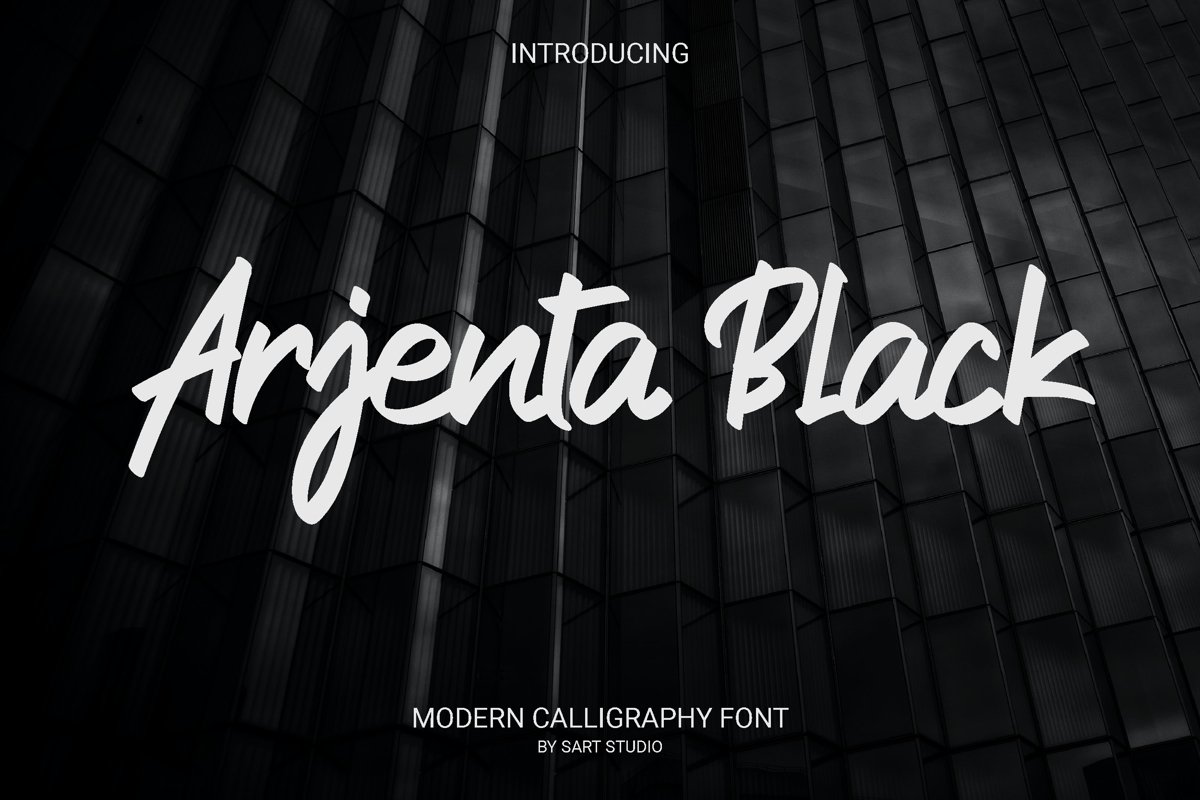
Arjenta Black - Modern Calligraphy Font
Arjenta Black
Arjenta Black is an artistic handwritten font, carefully handcrafted to become a true favorite. Its casual charm makes it appear wonderfully down-to-earth, readable and, ultimately, incredibly versatile. This font will look outstanding in any context, whether it’s being used on busy backgrounds or as a standalone headline!